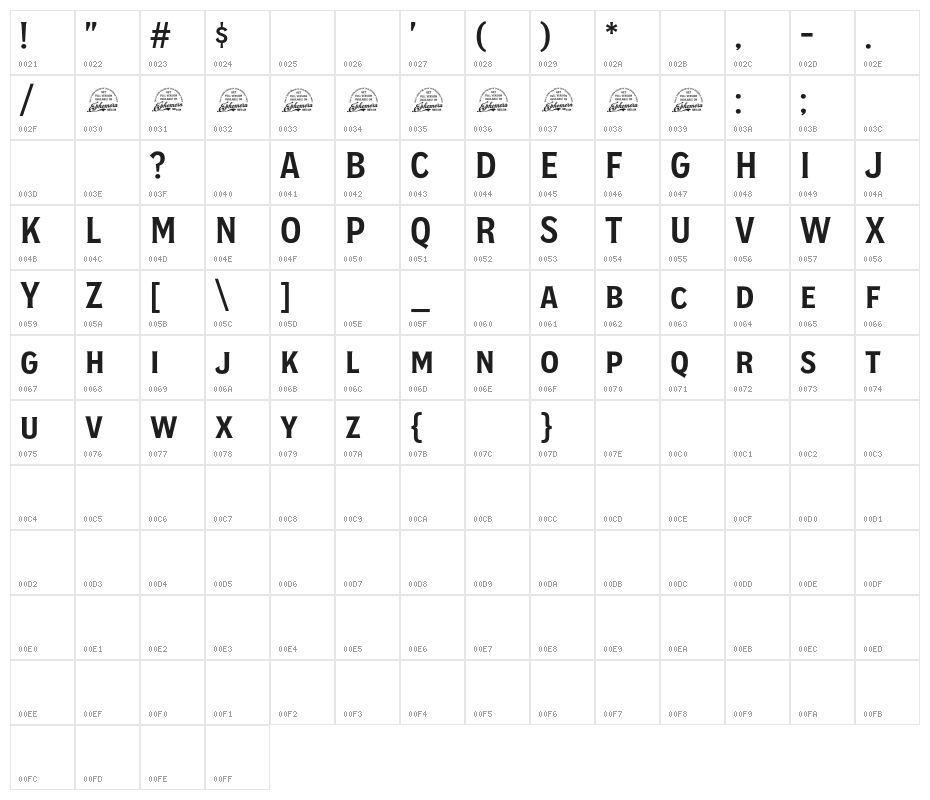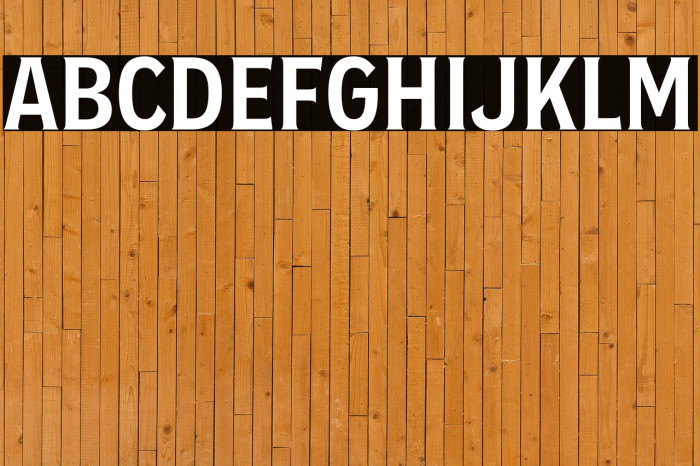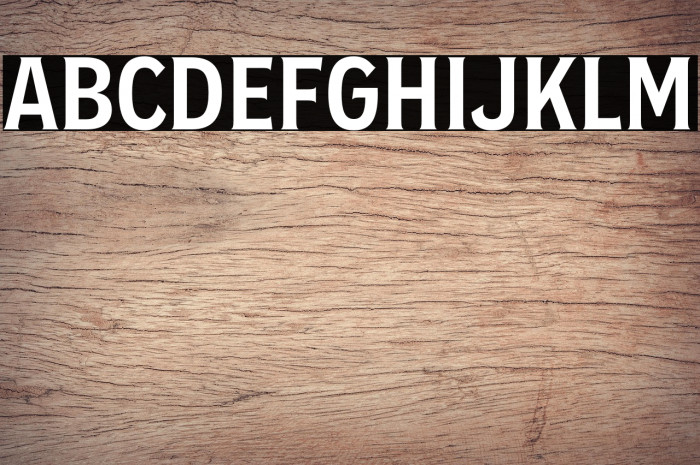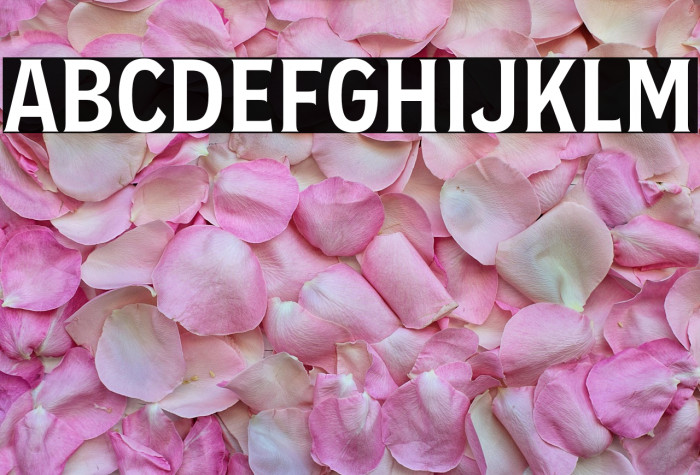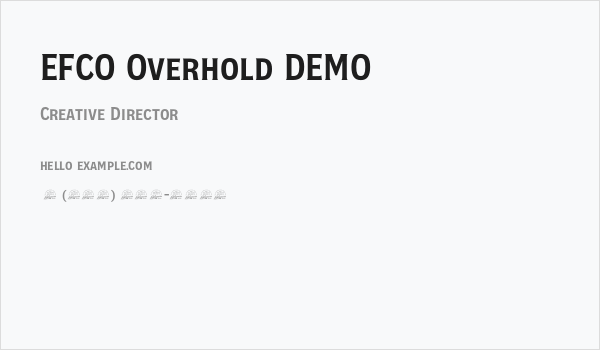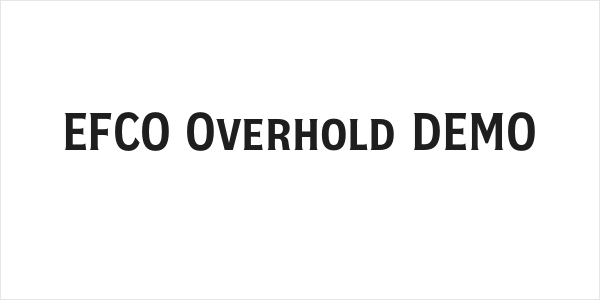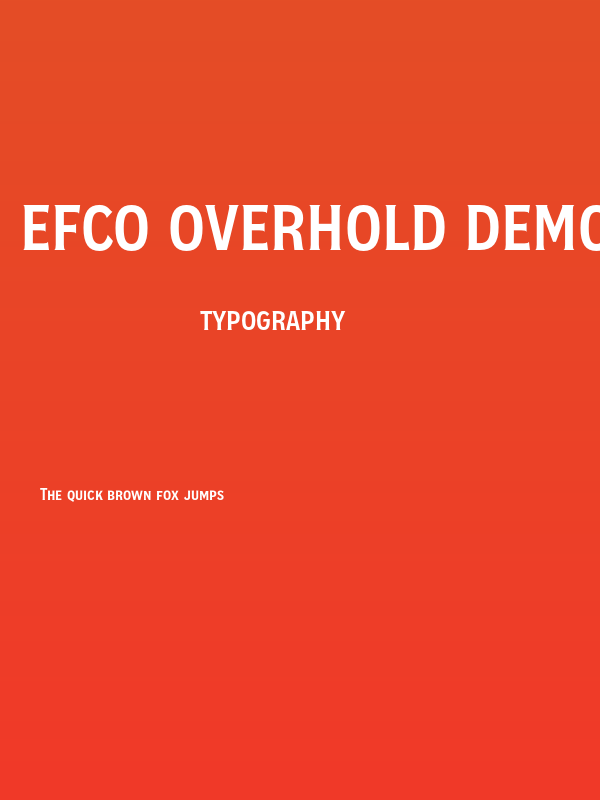
EFCO Overhold DEMO Font
EFCO Overhold DEMO Description
This font features bold, uppercase letters with a strong presence, making it ideal for attention-grabbing headlines. The characters are well-defined with a slight serif touch, adding a classic feel while maintaining a modern edge. The strokes are consistent in thickness, providing a uniform appearance across all letters. The spacing between characters is normal, ensuring readability without compromising style. This font includes a full set of uppercase letters, numbers, and a selection of special characters, making it versatile for various design needs.